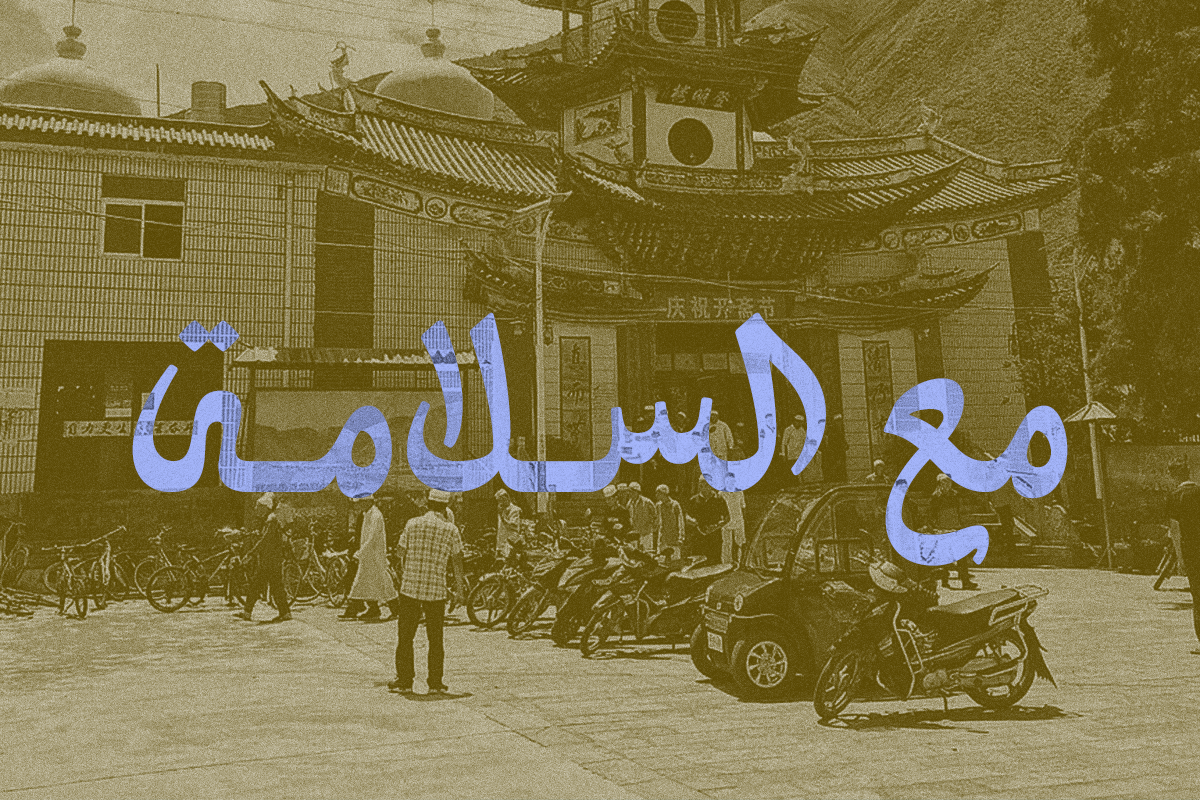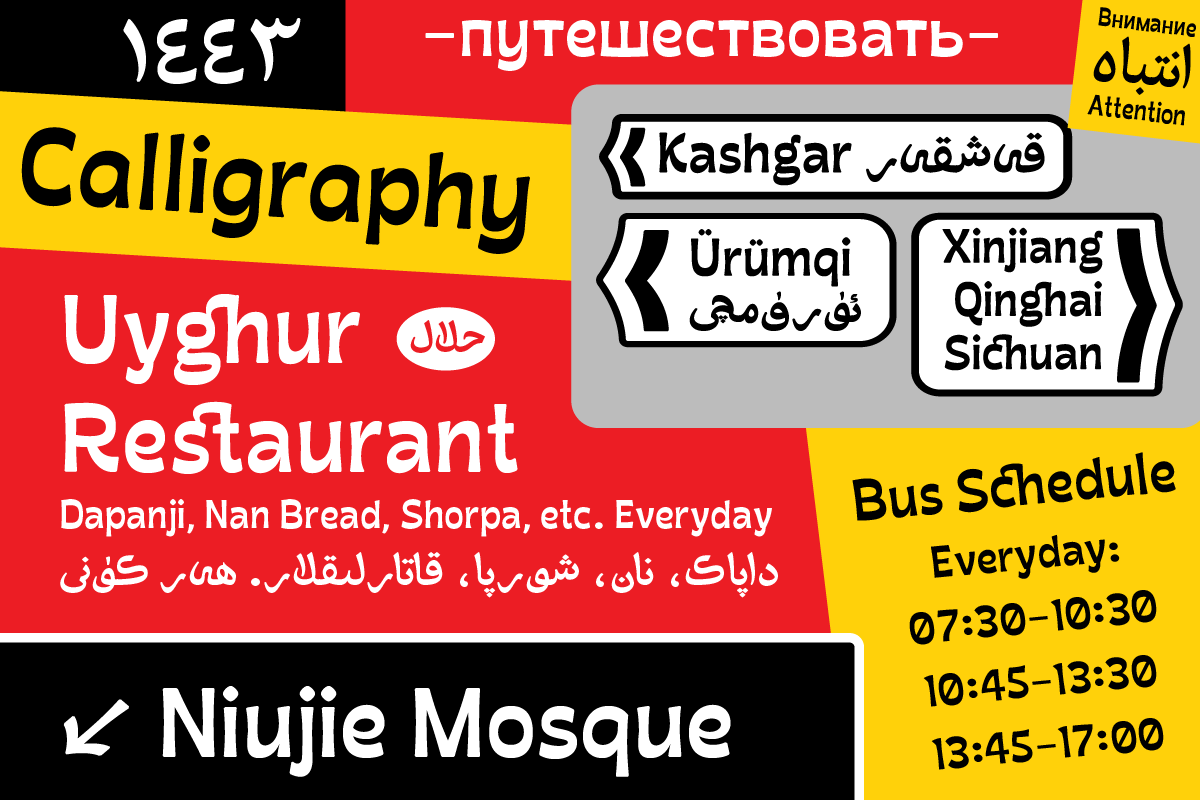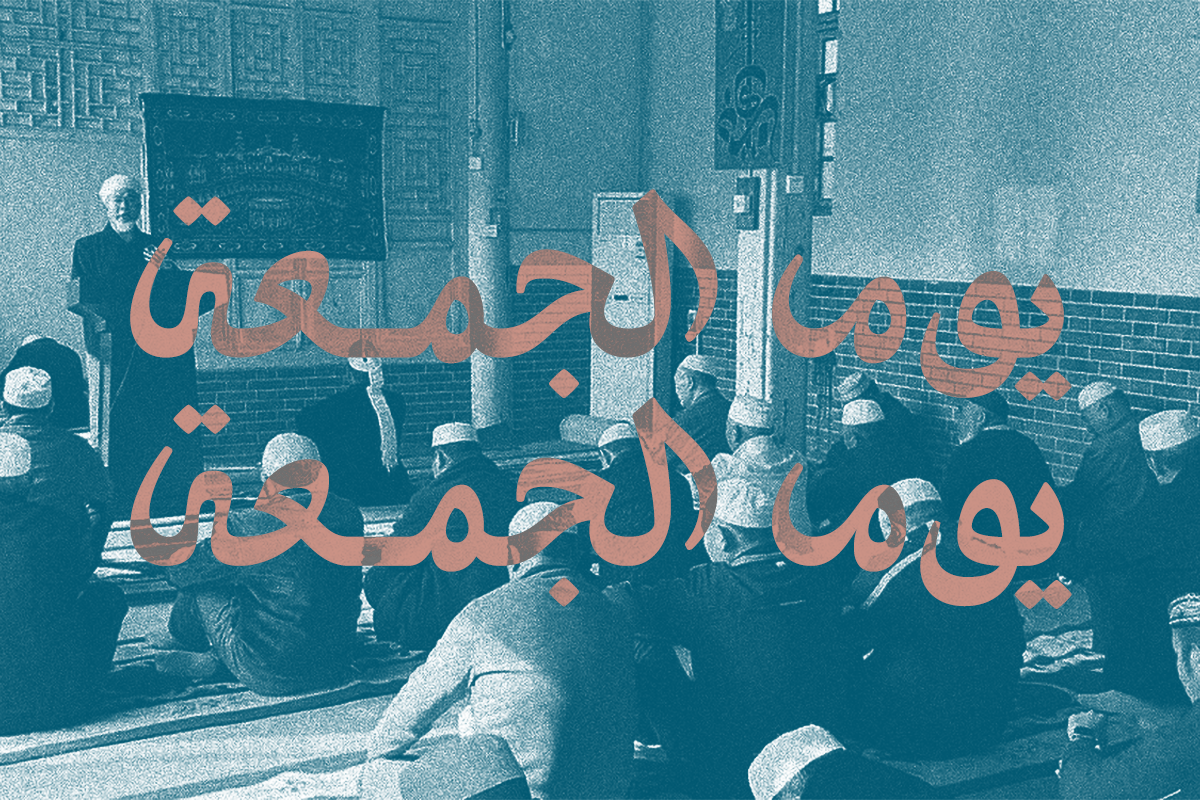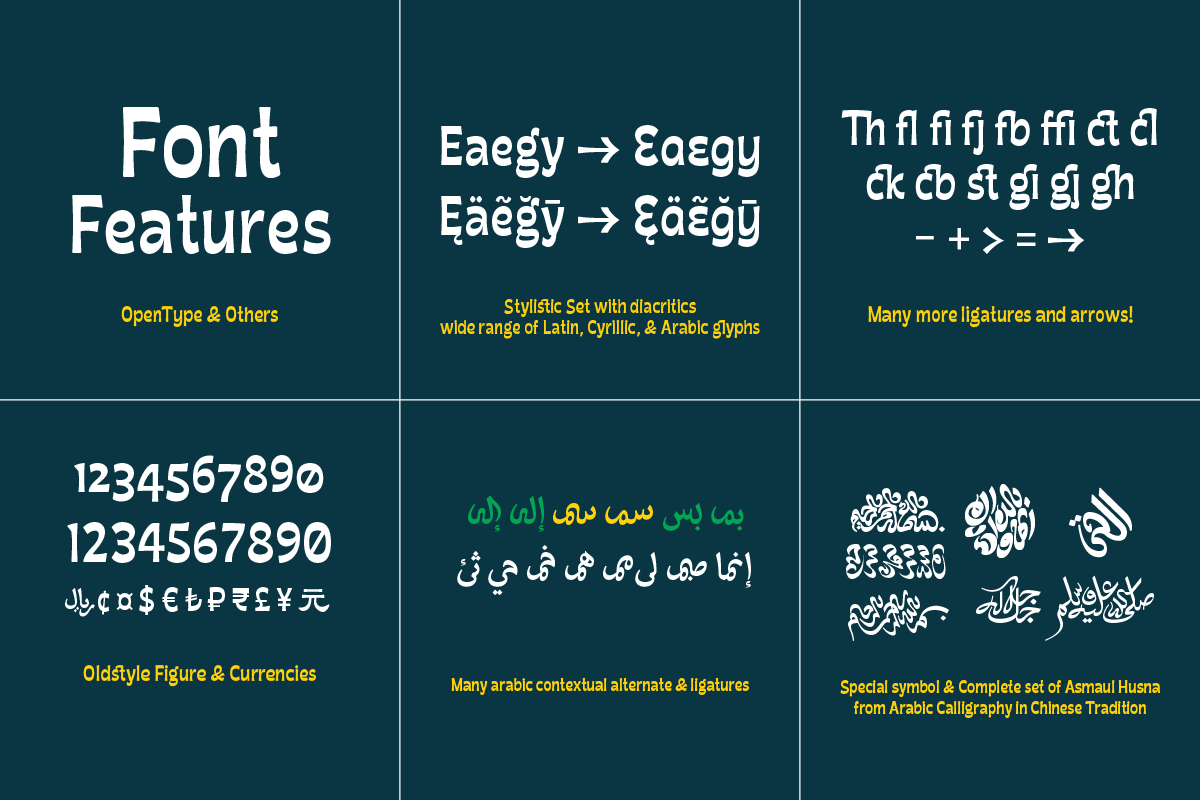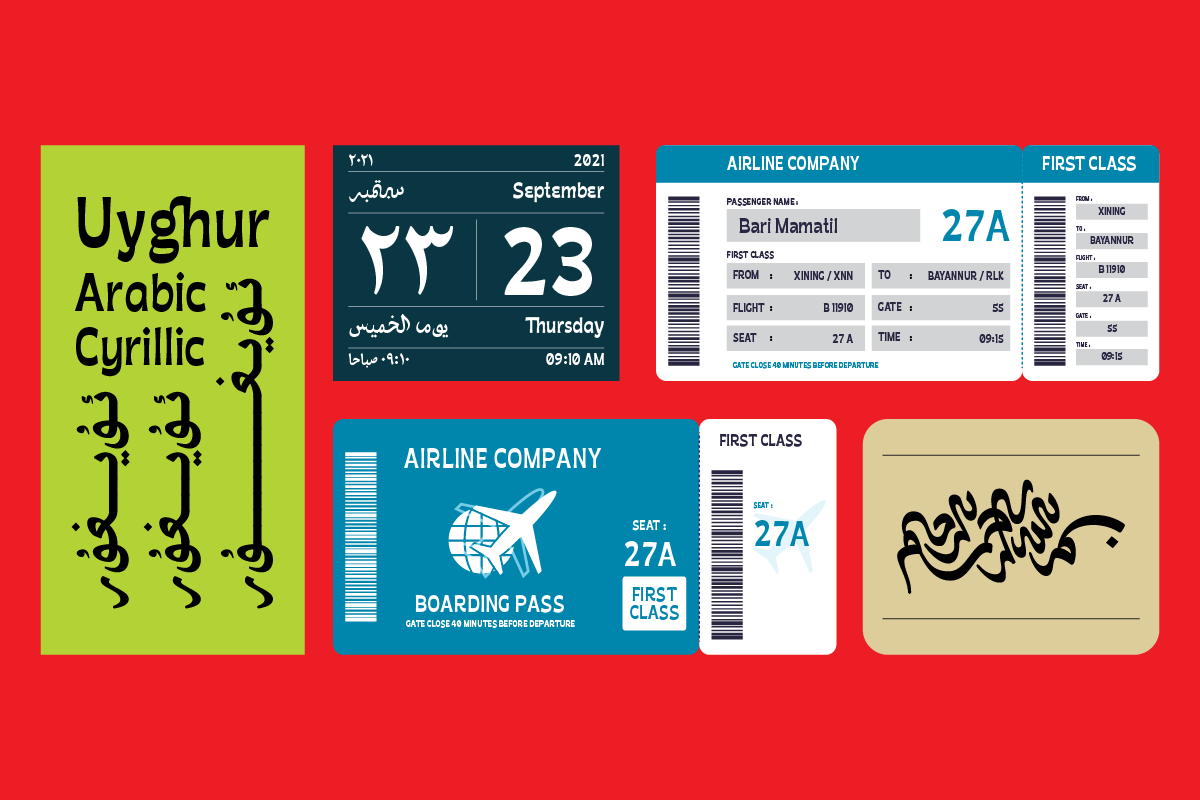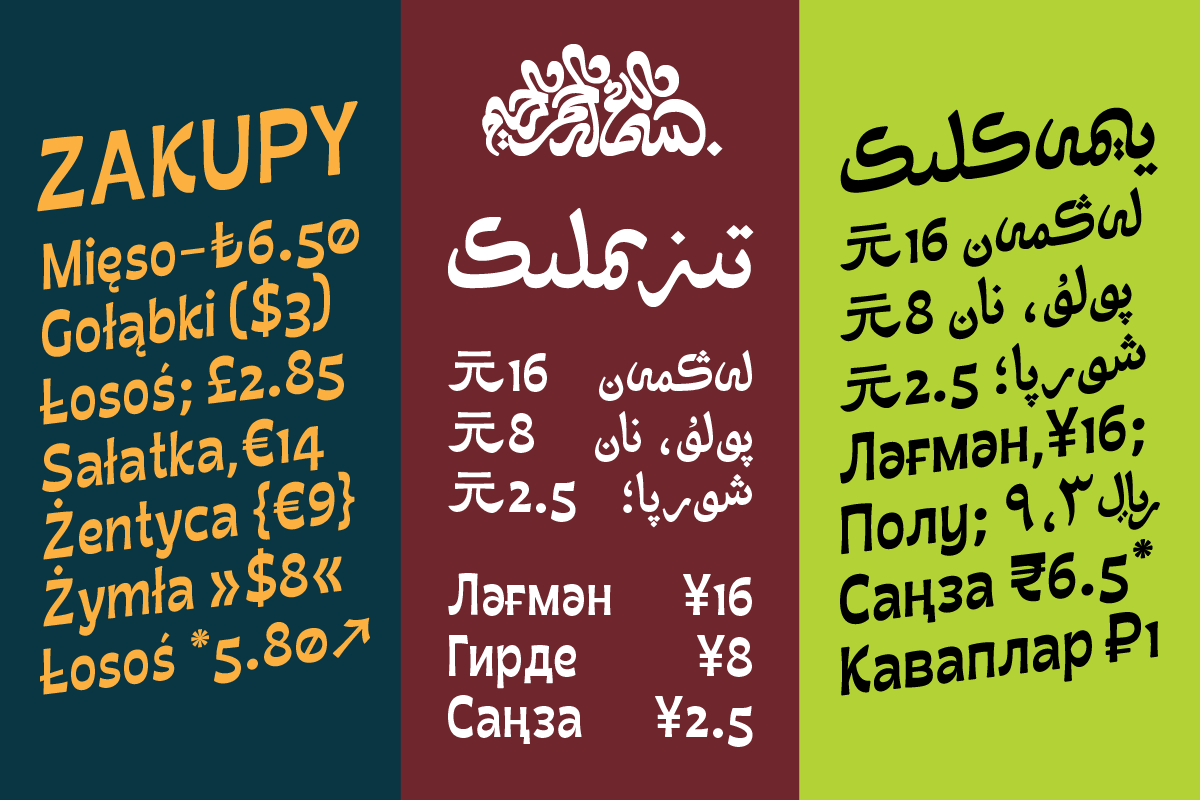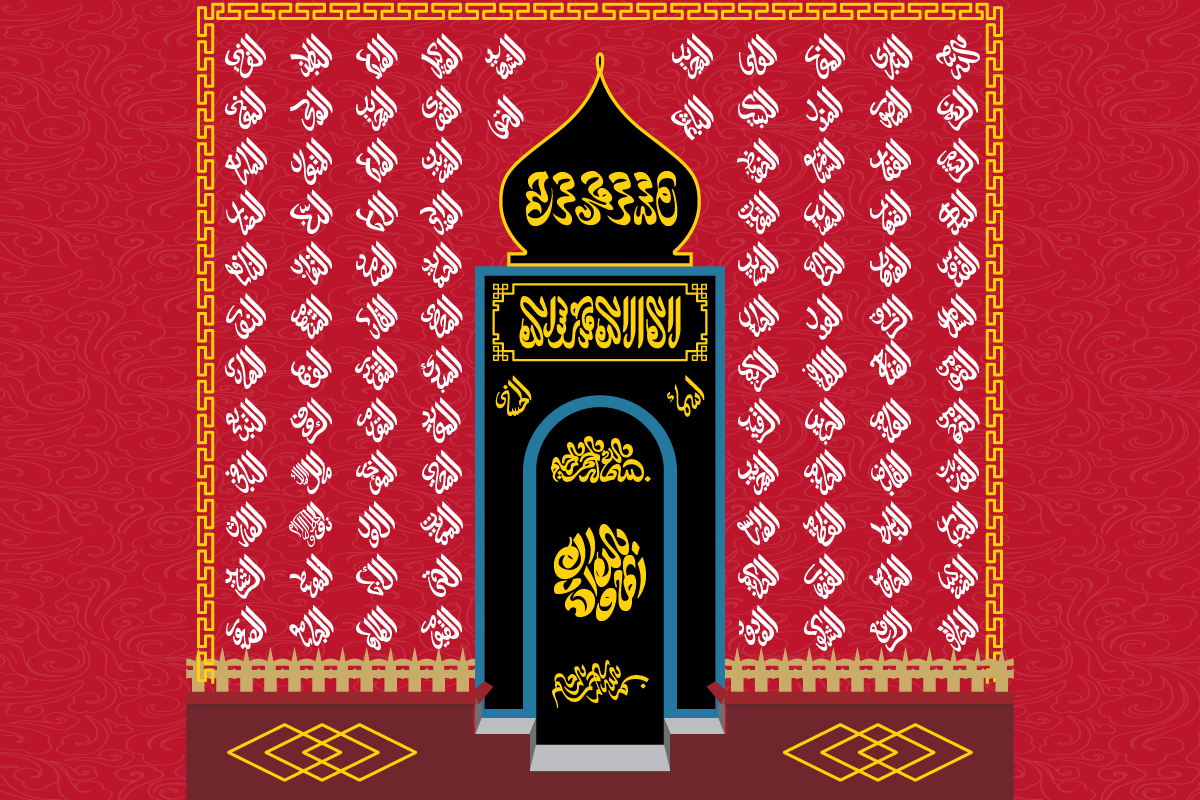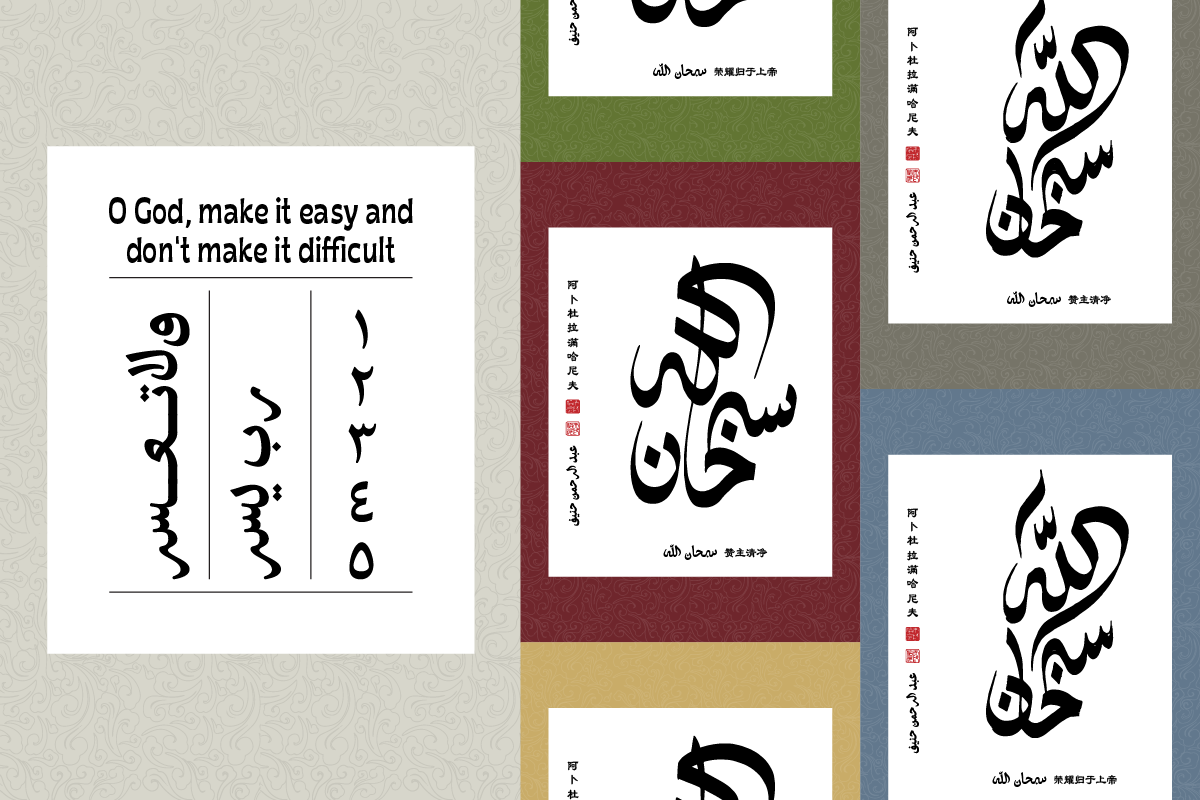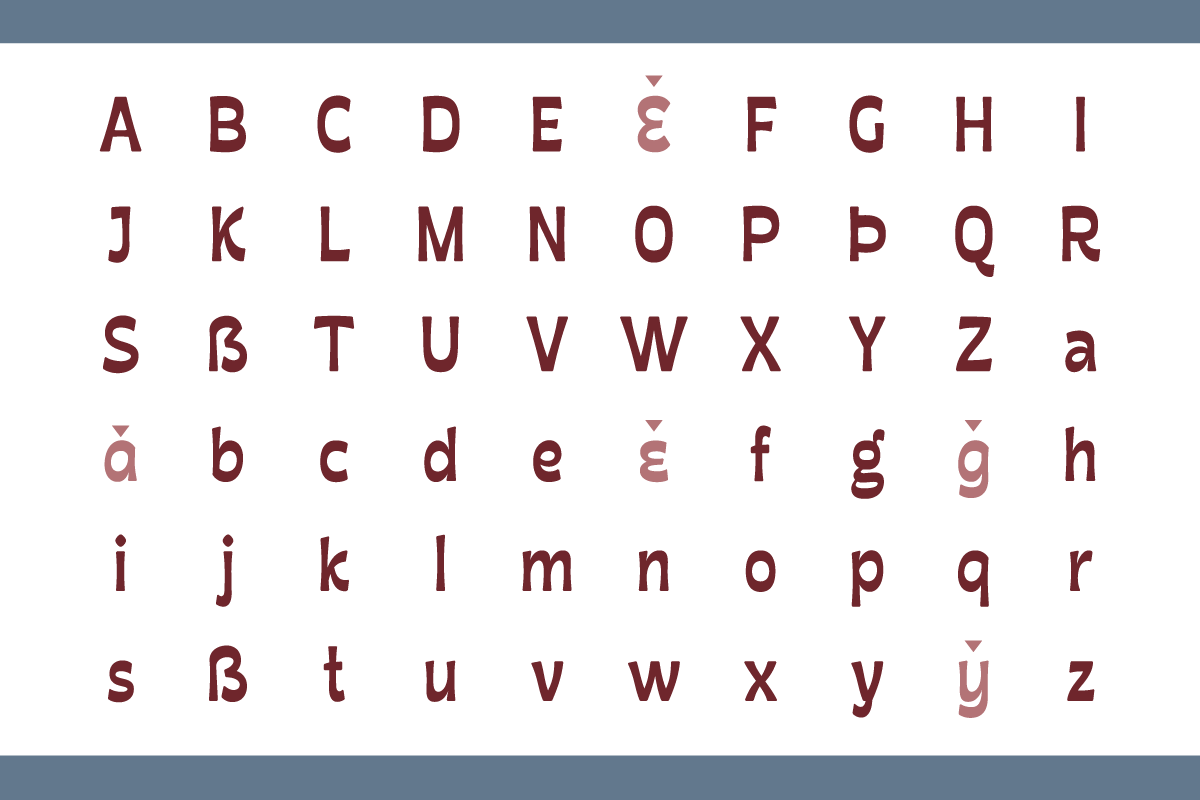
MO Bayannur
Bayannur is a typeface published by Monoco Type Foundry inspired by Arabic Calligraphy in Chinese Tradition. This font has extensive Latin script support with many ligatures and stylistic sets, as well as Cyrillic and unique Arabic design with contextual alternates and many ligatures. The glyphs in this font also specifically support Uyghur script typing. Abdurrahman Hanif, designer of Bayannur who based in Jakarta, trying to develop this font as his appreciation for this beautiful Art of Calligraphy.